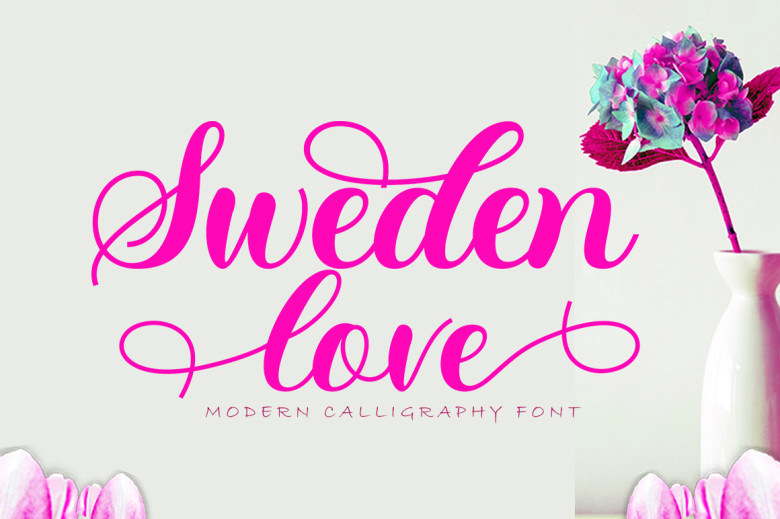
Sweden Love Font
Sweden Love is an eye-catching calligraphy font with warm calligraphic strokes that is ideal for creating welcoming environments, from titles and letterheads to stationery designs.
Sweden Love Calligraphy Script Font